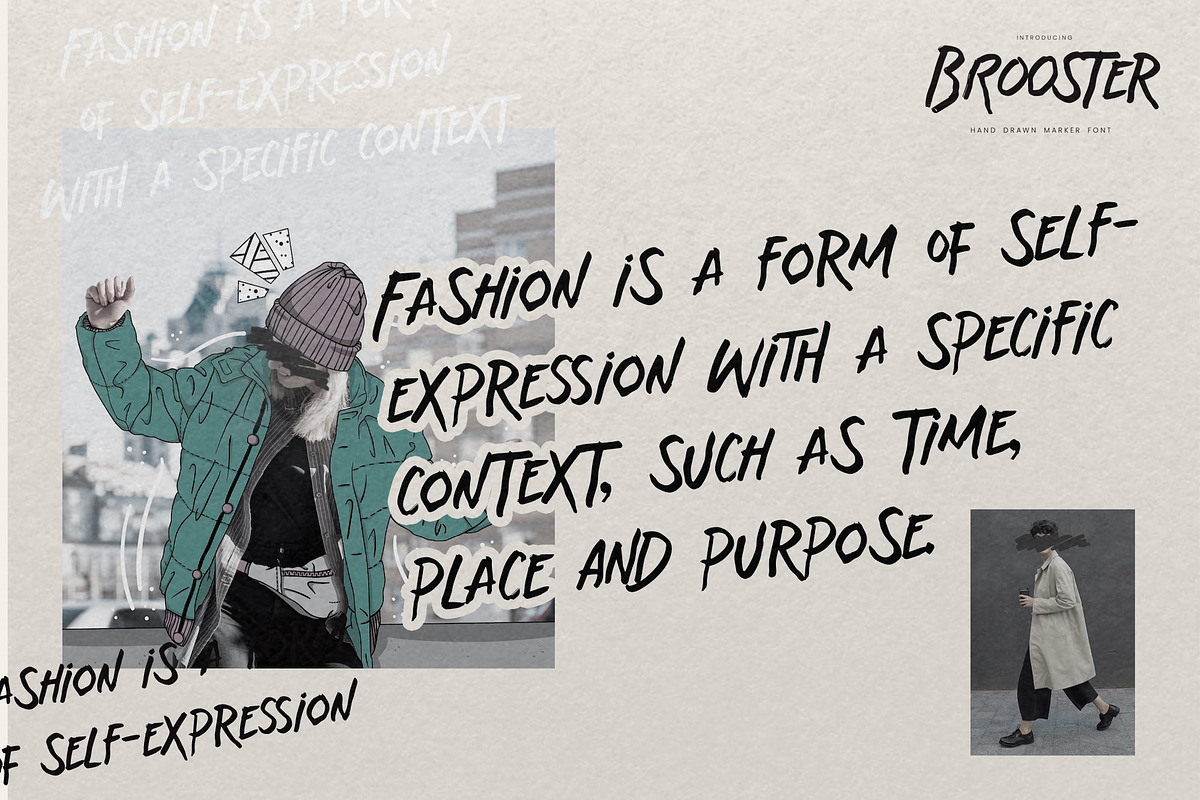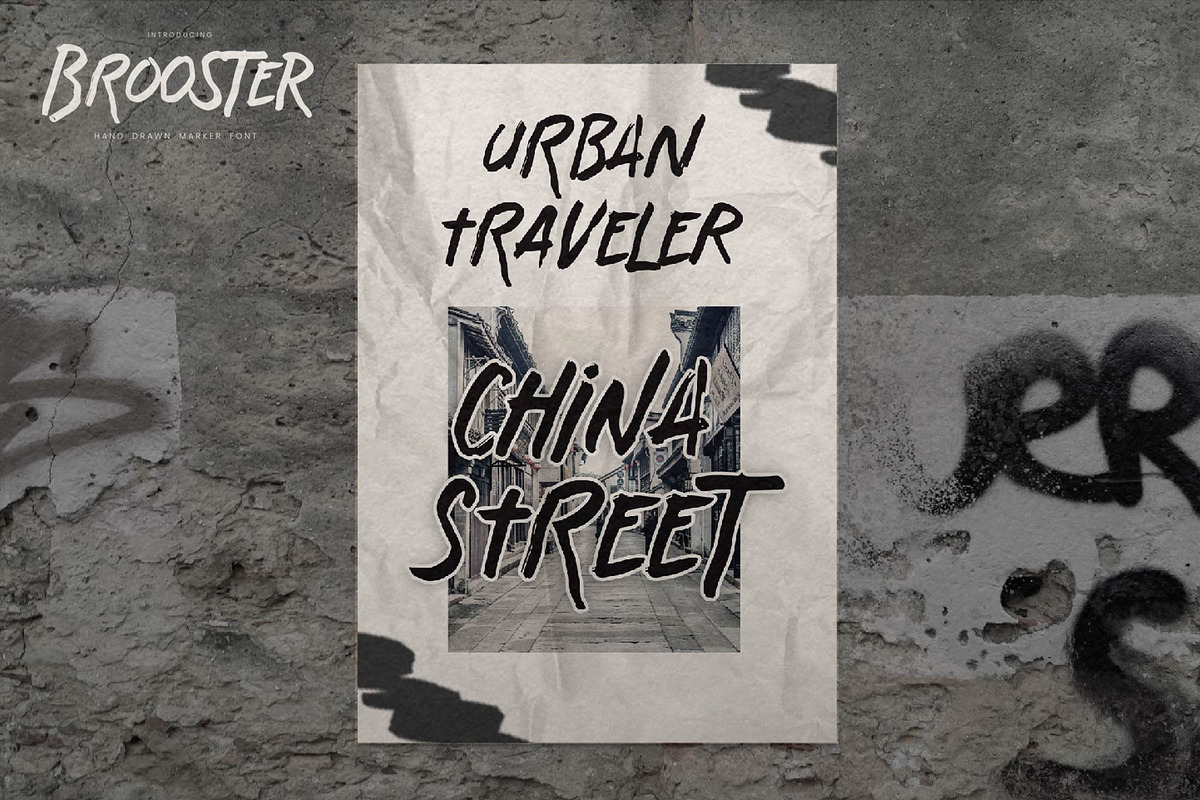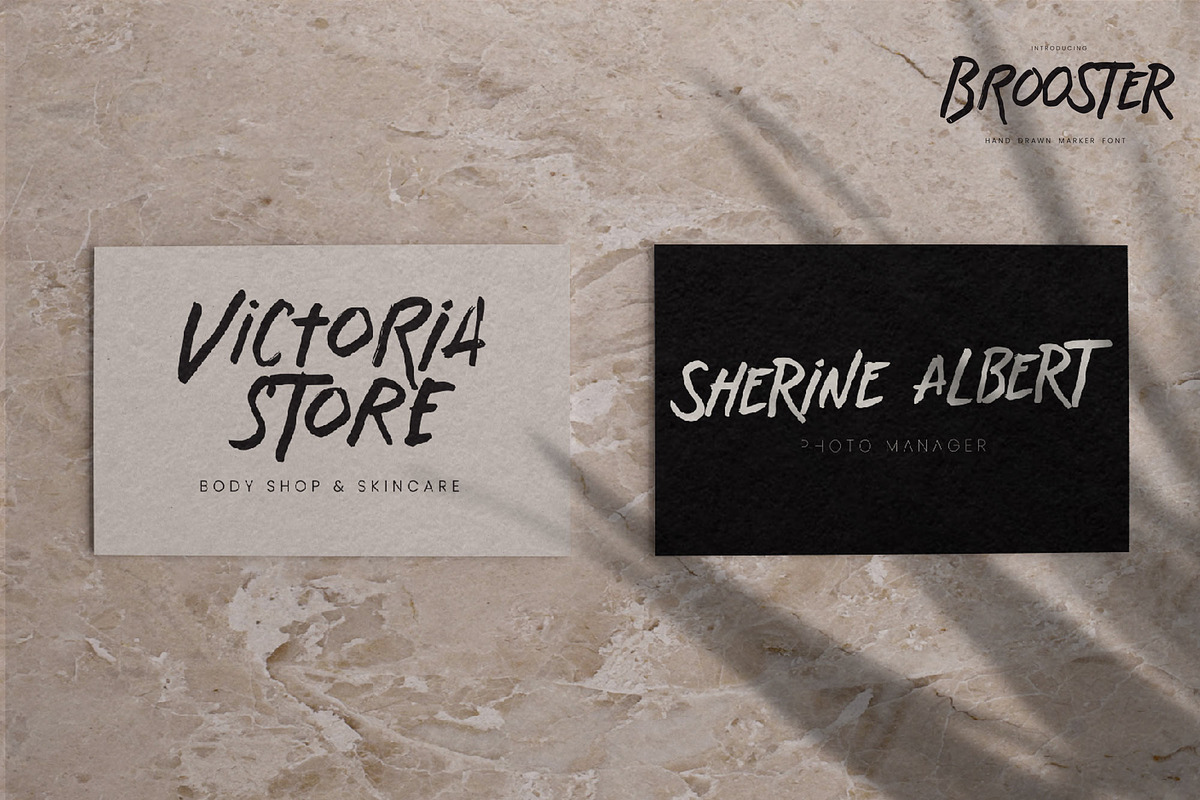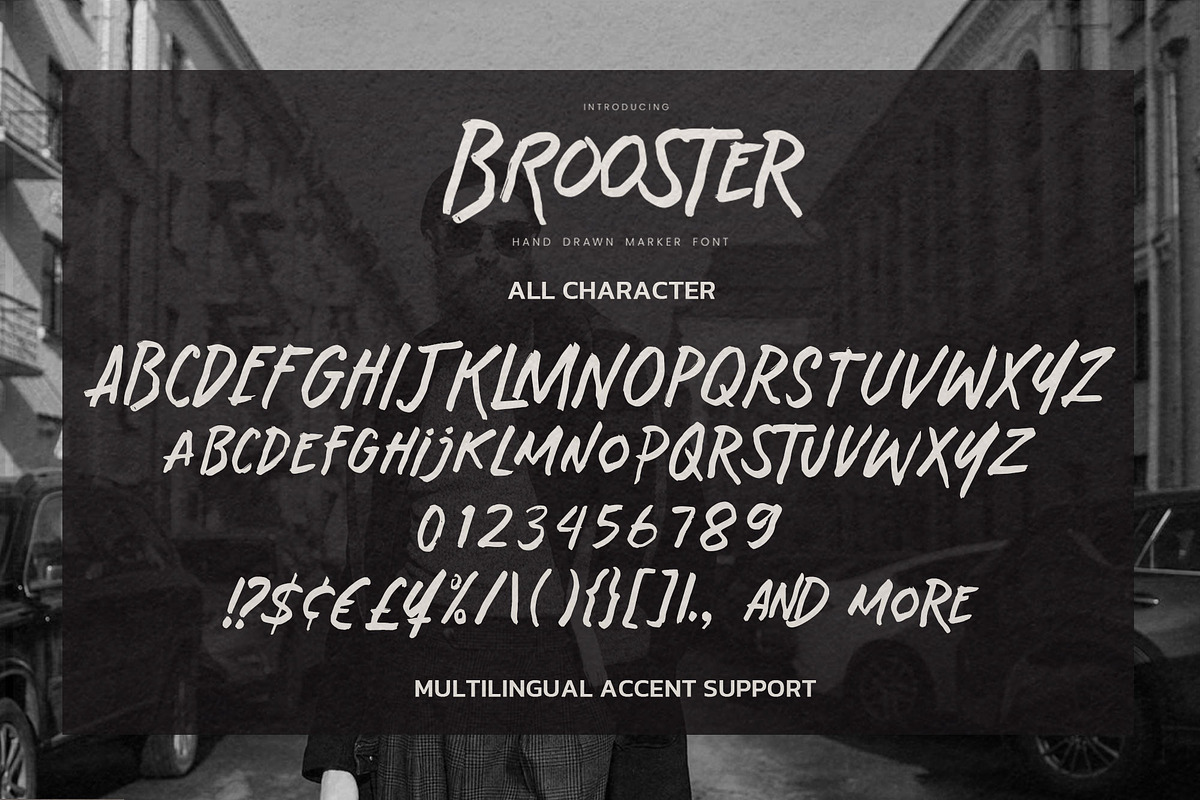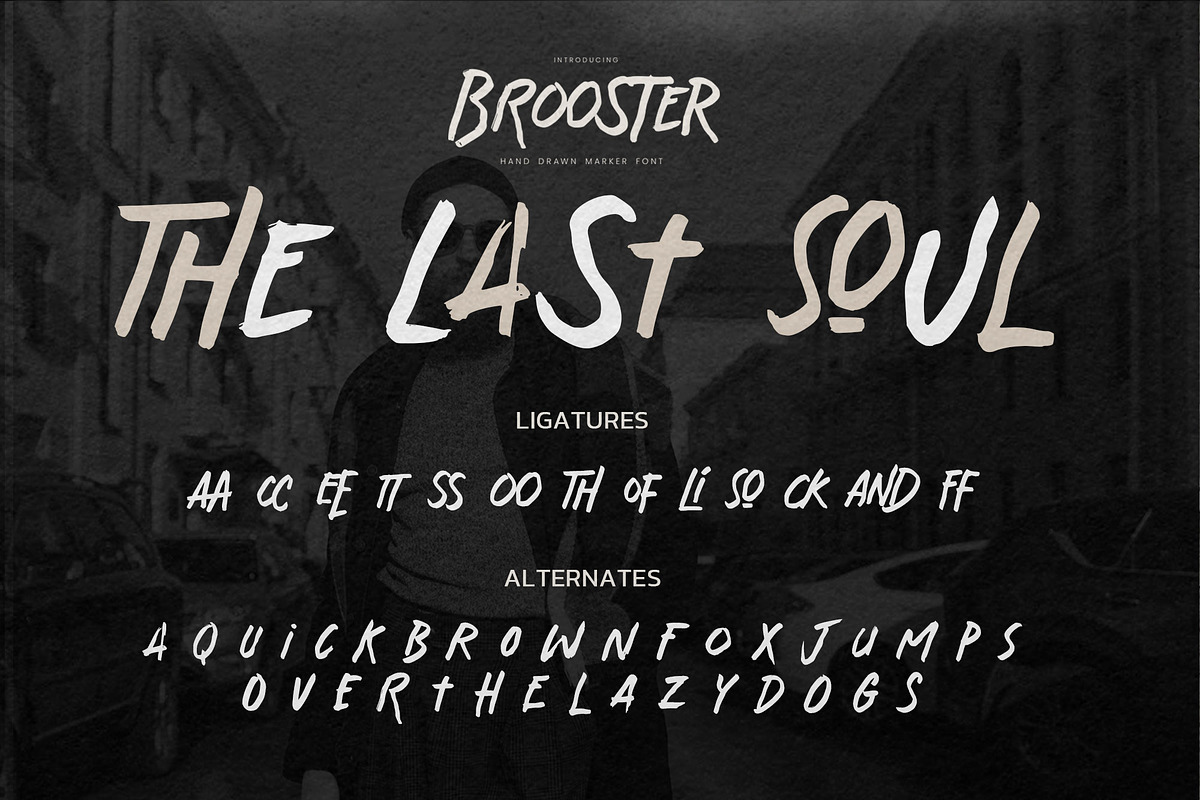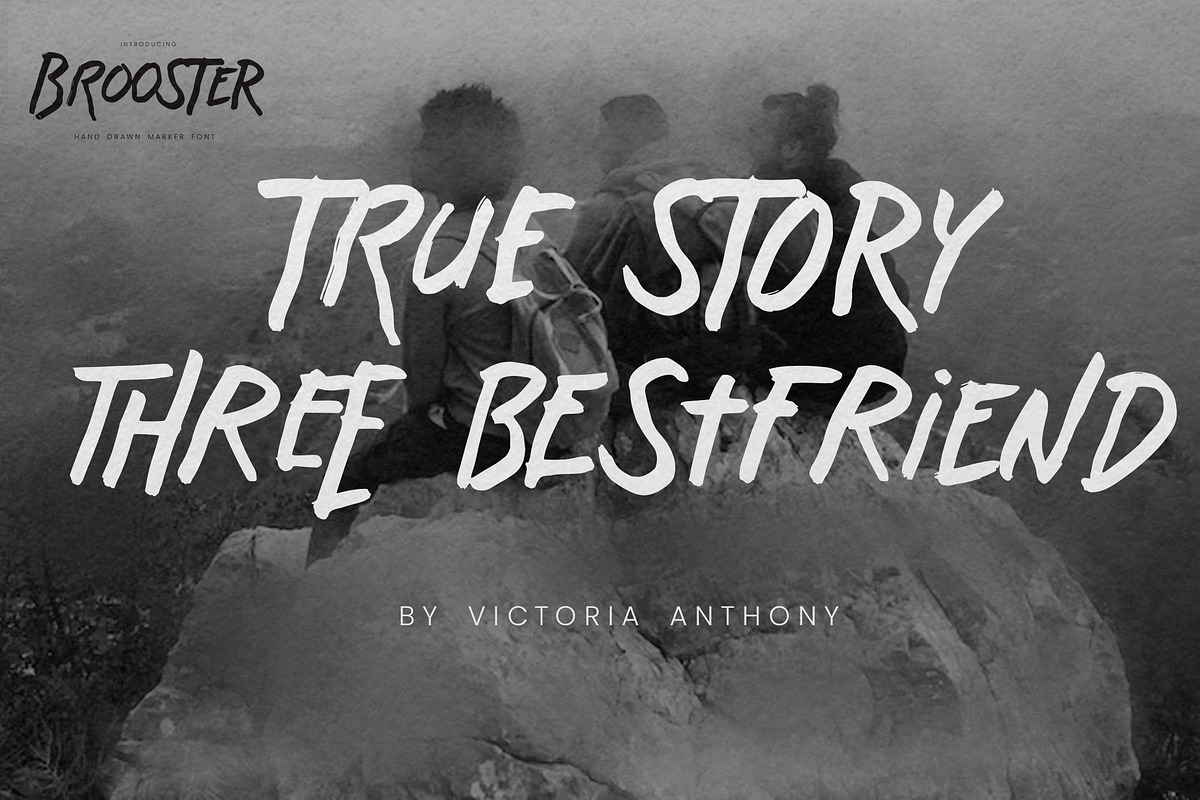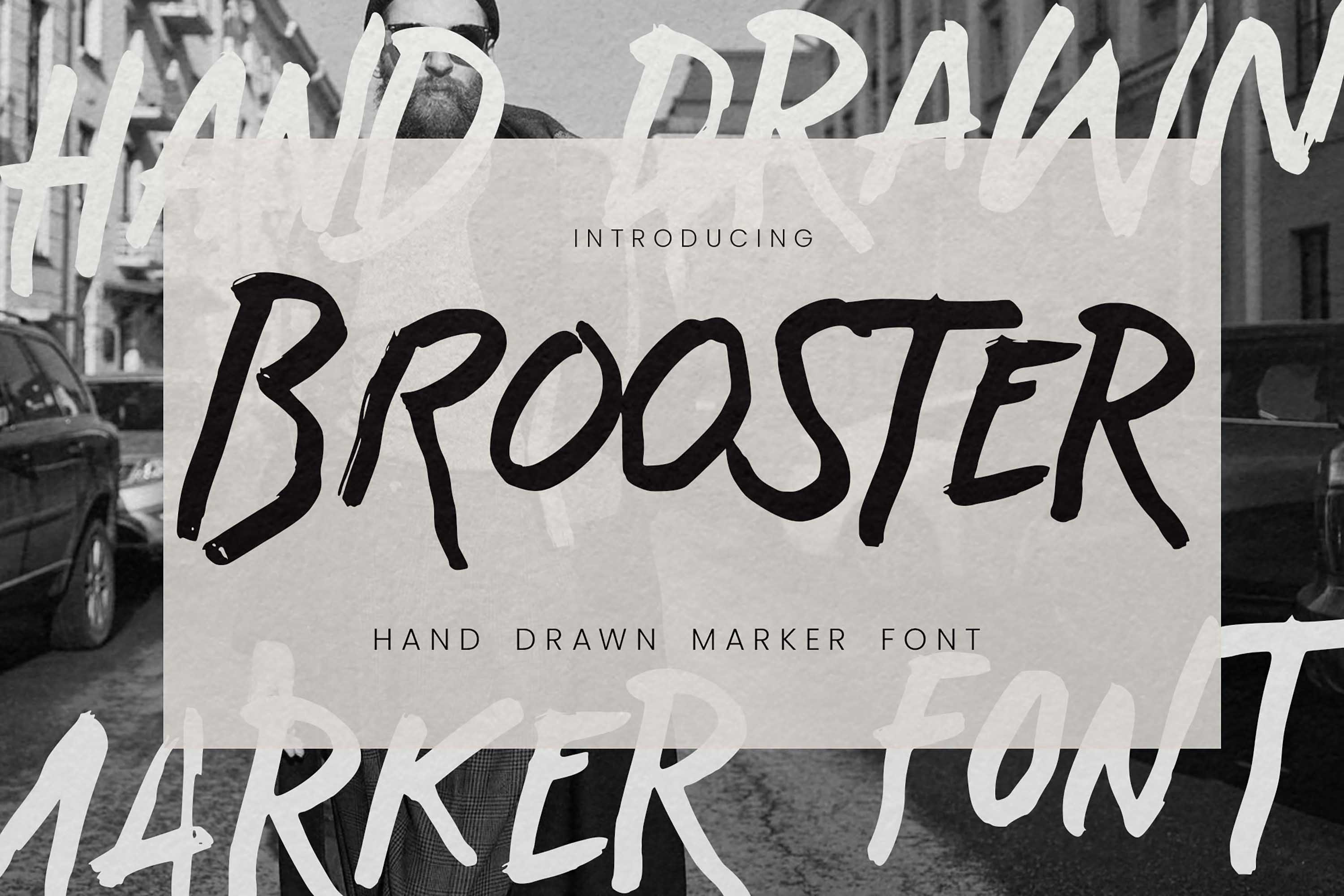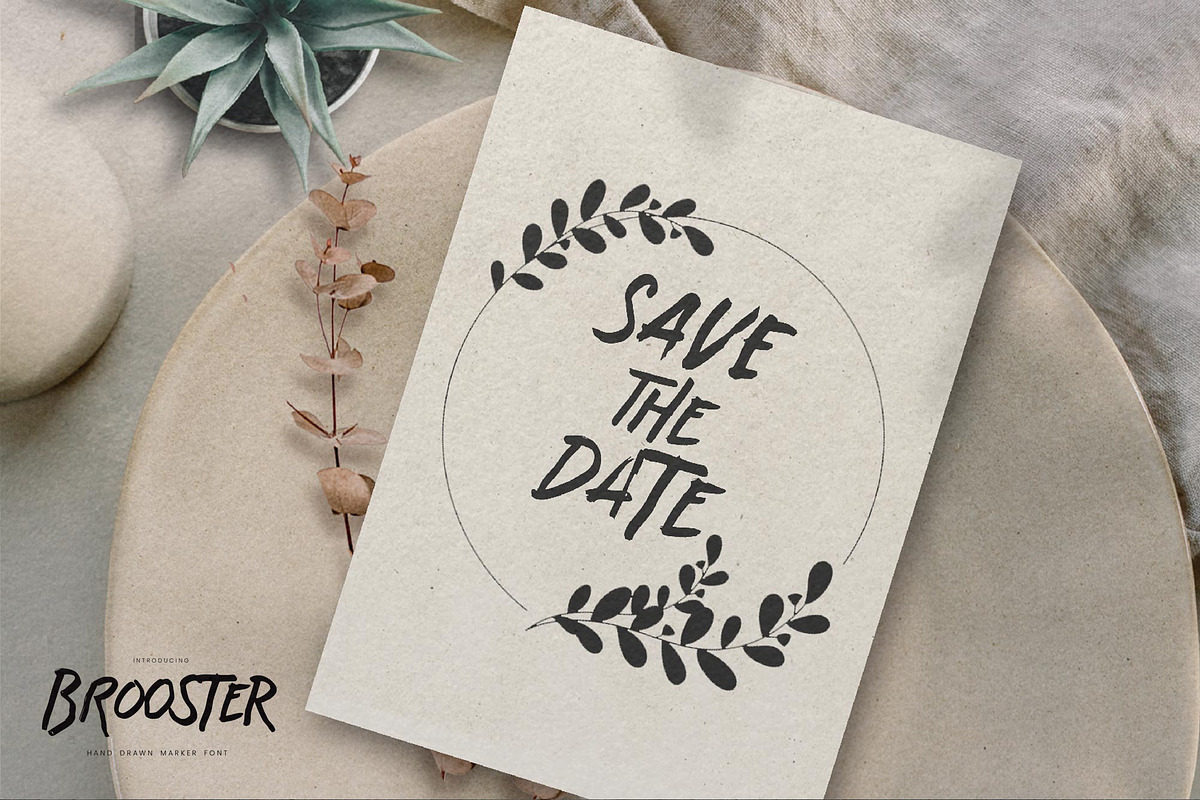
Brooster - Hand Drawn Marker Font
Hello Everyone, introduce our new product Font Brooster This Is Hand Drawn Marker Font.This is a Textured Natural Style and classy style with a clear style and dramatic movement. This font Brooster is great for your next creative project such as logos, printed quotes, invitations, cards, product packaging, headers, Logotype, Letterhead, Poster, Design this font is great for your creative projects such as watermark on photography, and perfect for logos & branding, invitation,advertisements,product designs, stationery, wedding designs,label ,product packaging, special events or anything that need handwritting taste. That is has charming, authentic and relaxed characteristic more natural look to your text. You can activate 12 Ligatures and 35 Alternate glyphs OpenType panel.
- Alternates glyphs
- Ligatures glyphs